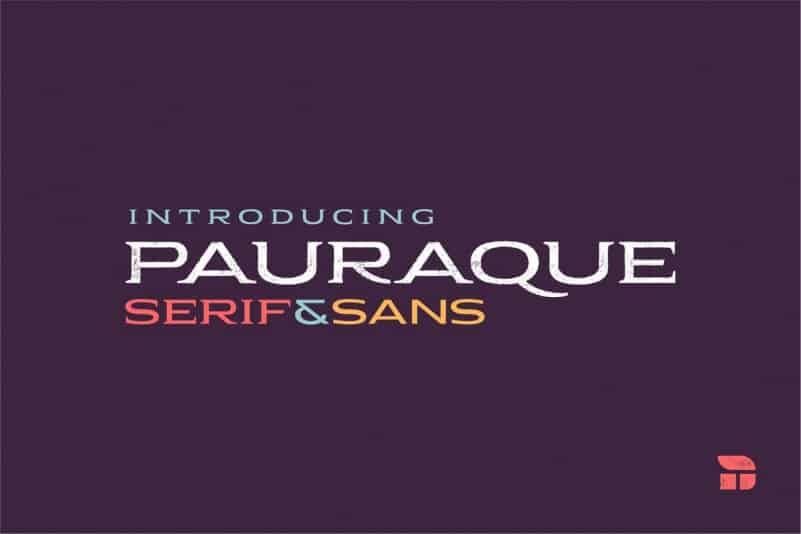
Pauraque Font
Pauraque Display Font
Pauraque Display Font is an organic font with natural vibes! Made from font designer named NimaVisual. It’s experimental, and at the same time it´s easy on the eyes, retaining both a classic elegant look and a modern geometric construction in a font you haven’t seen before. This makes it extremely usable in many kind of projects.
It comes in a clean and rough versions. Use it for titles, logos and short text or pair it with your favorite script font. Some subtle alternates can be obtained using uppercase/lowercase.